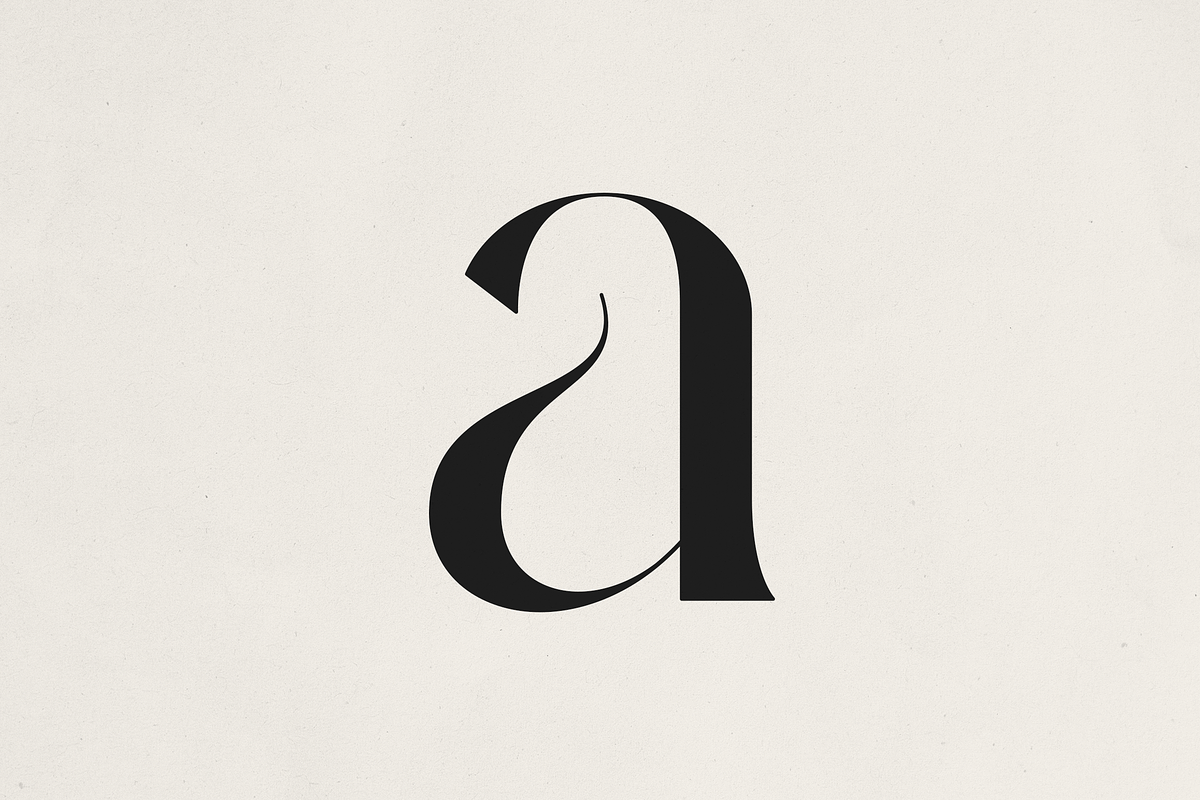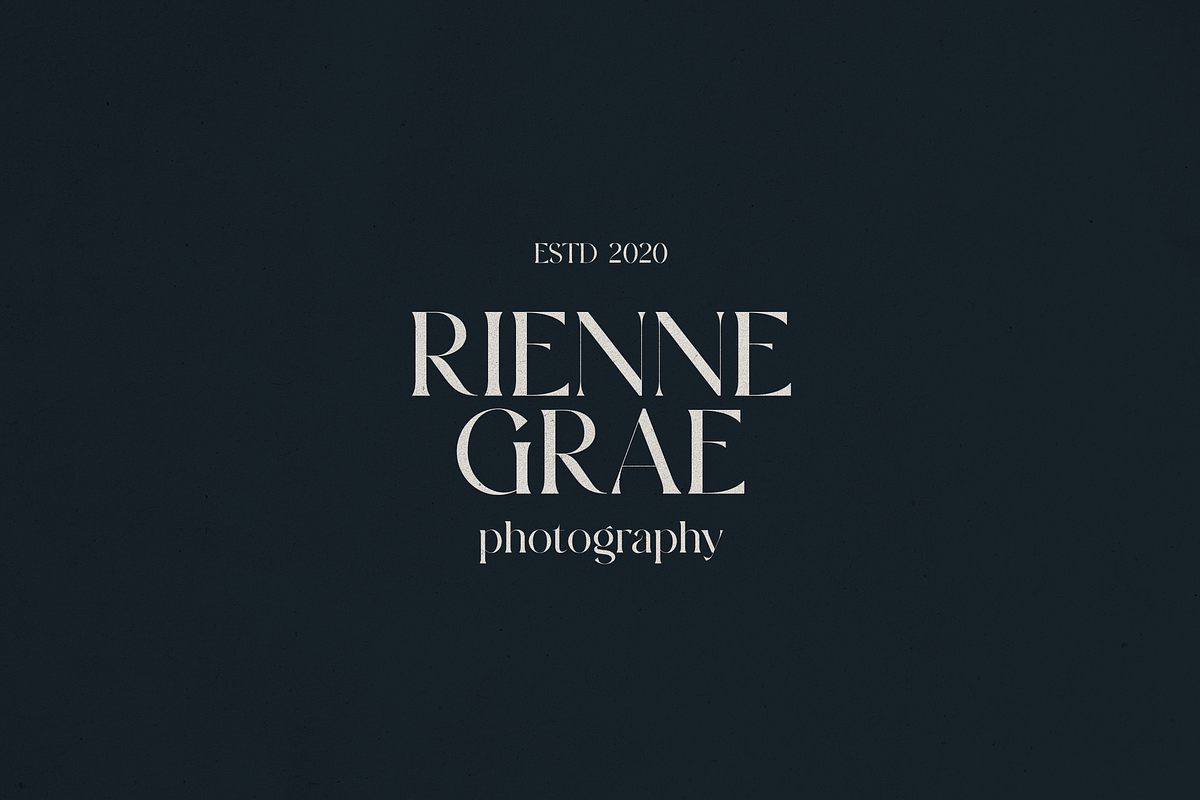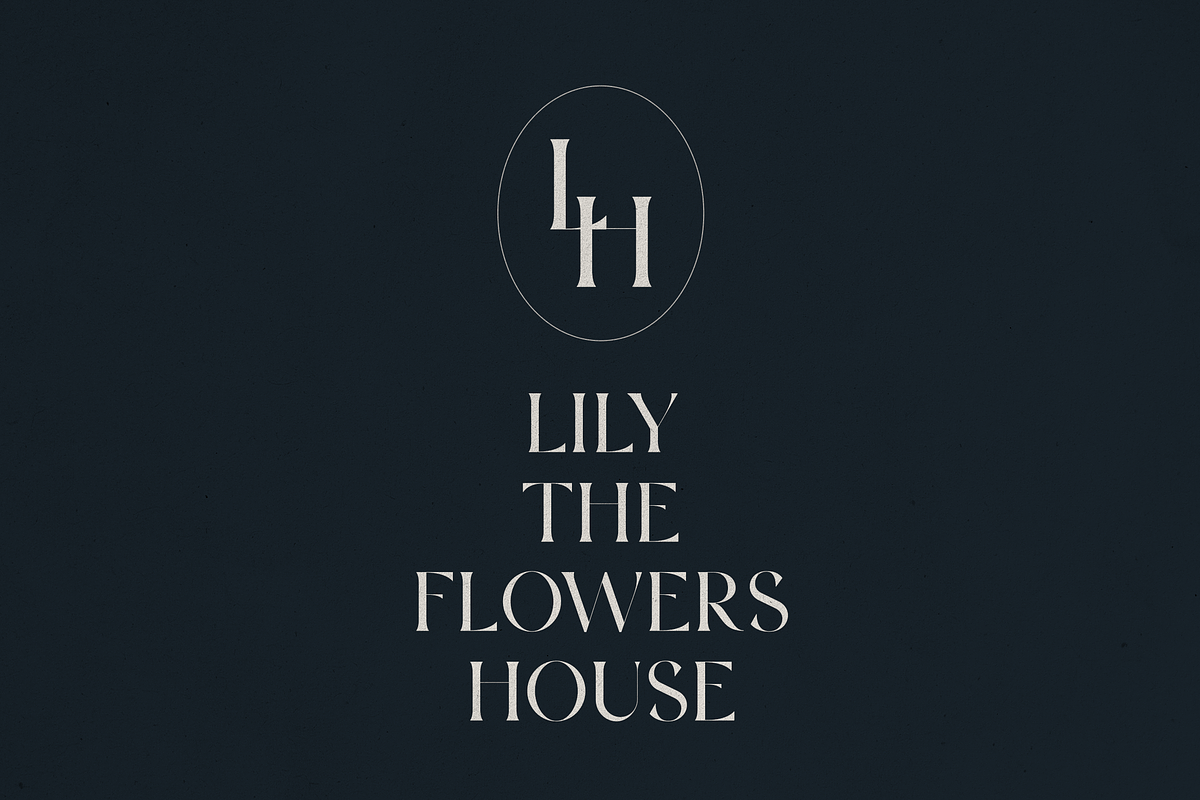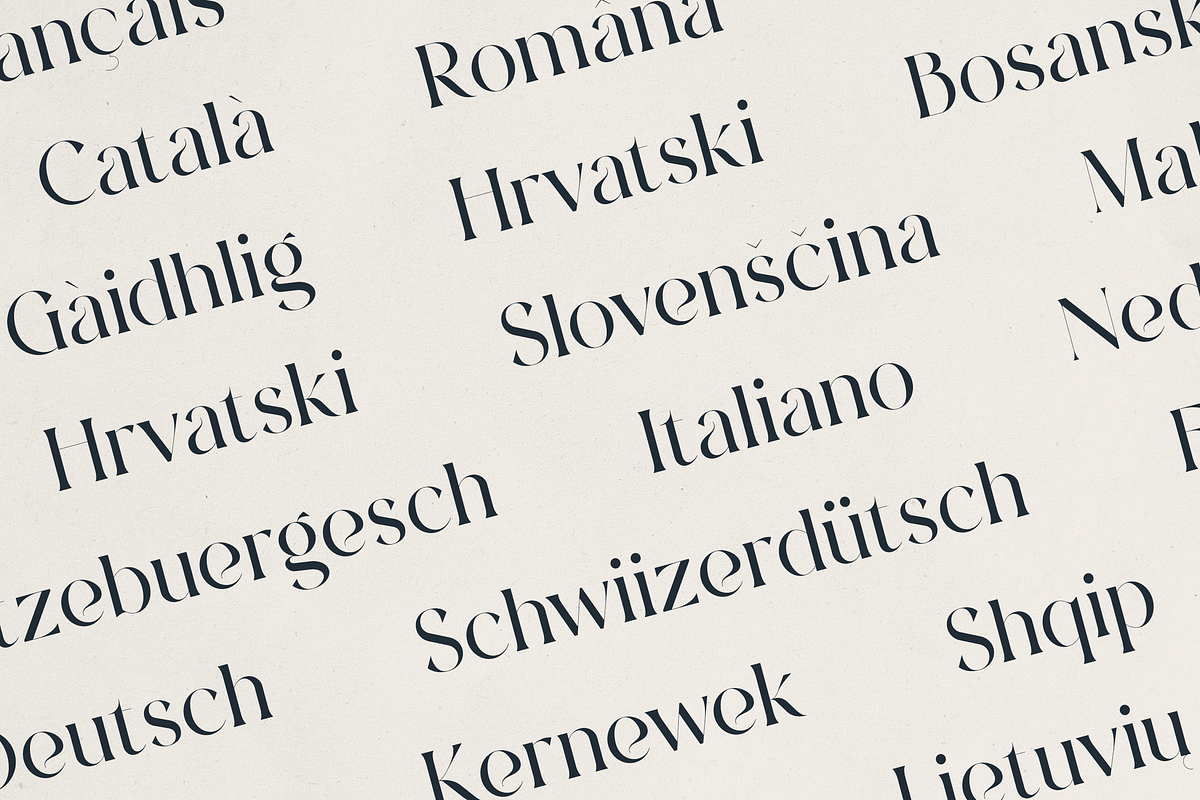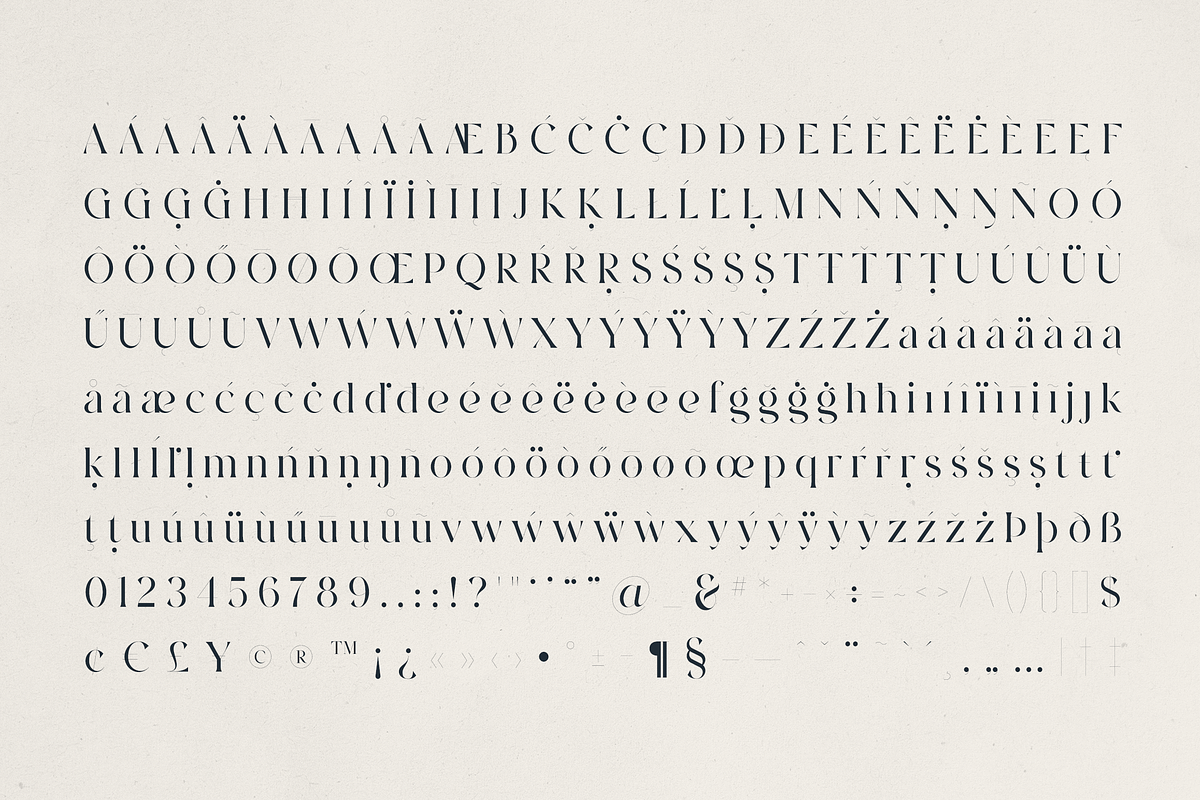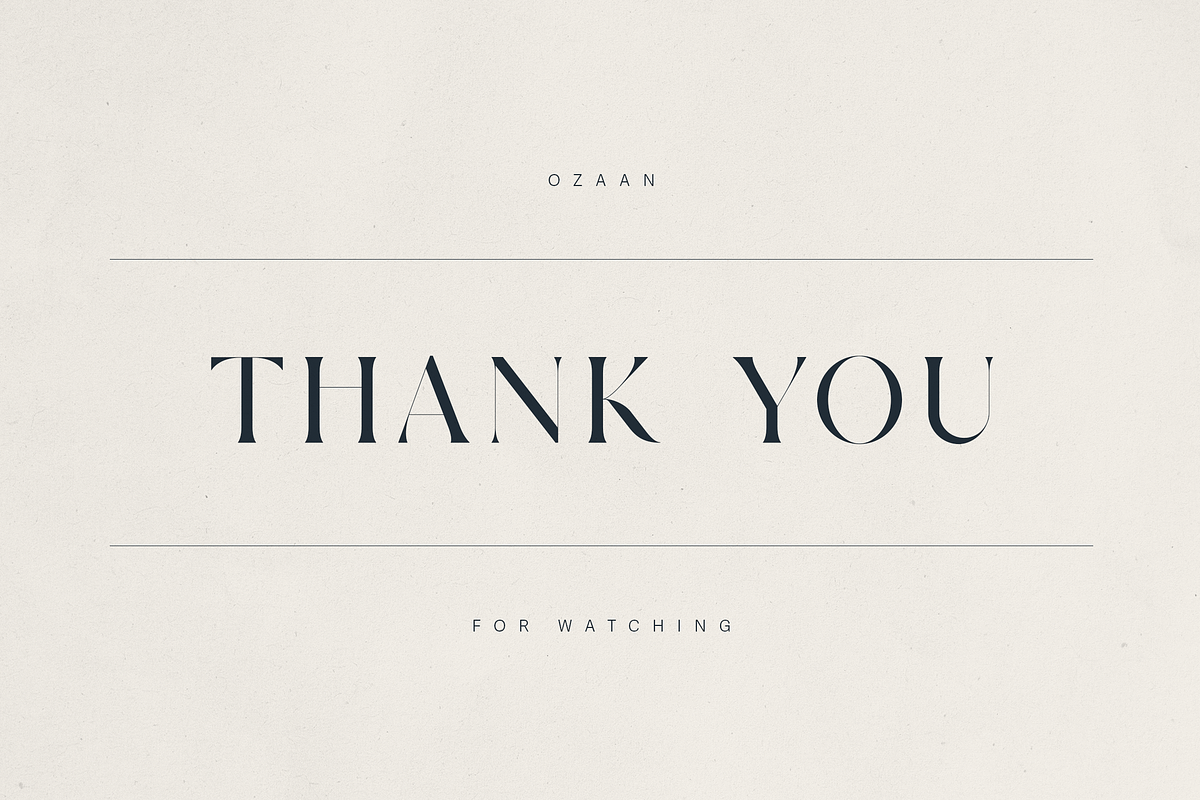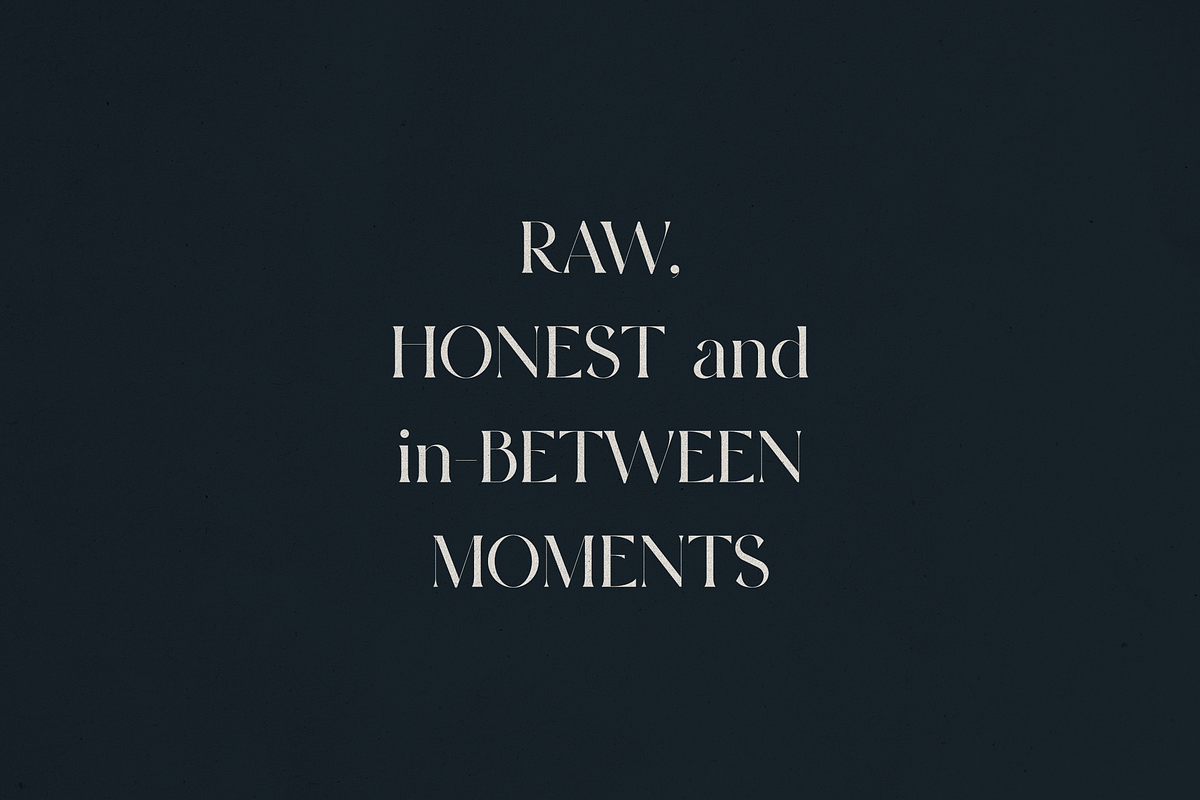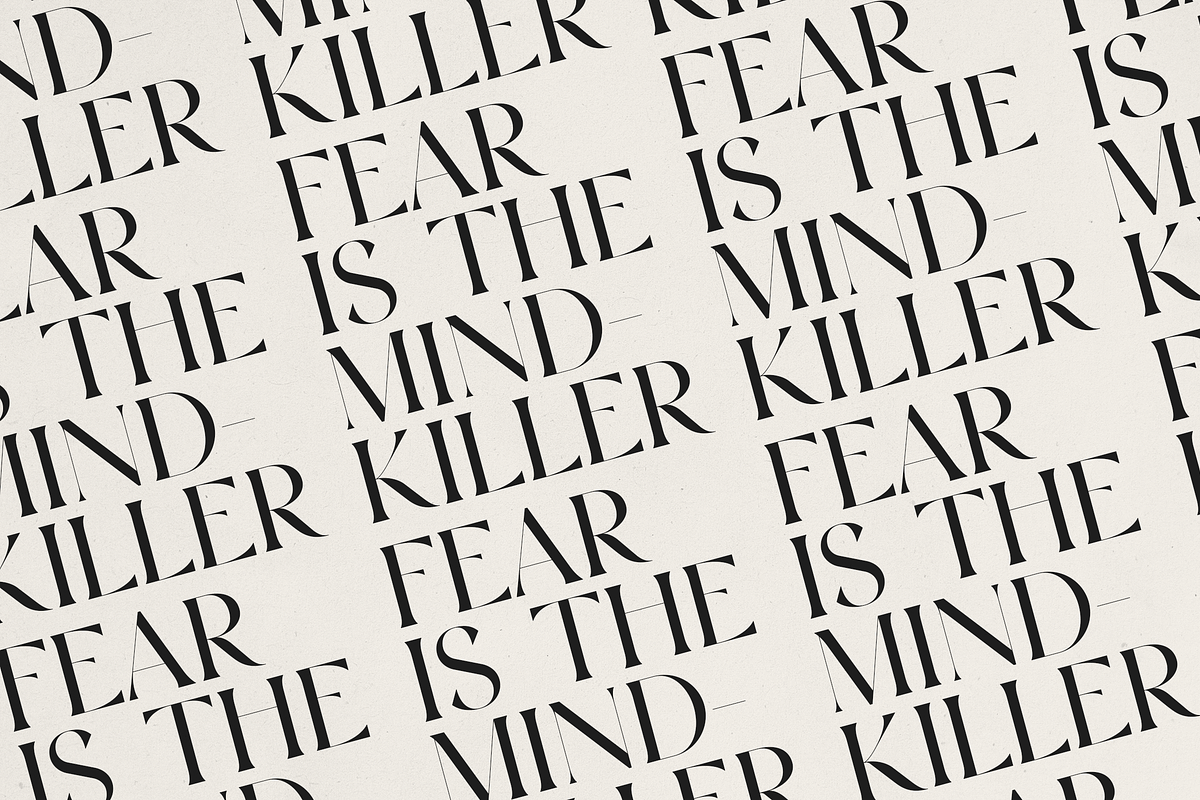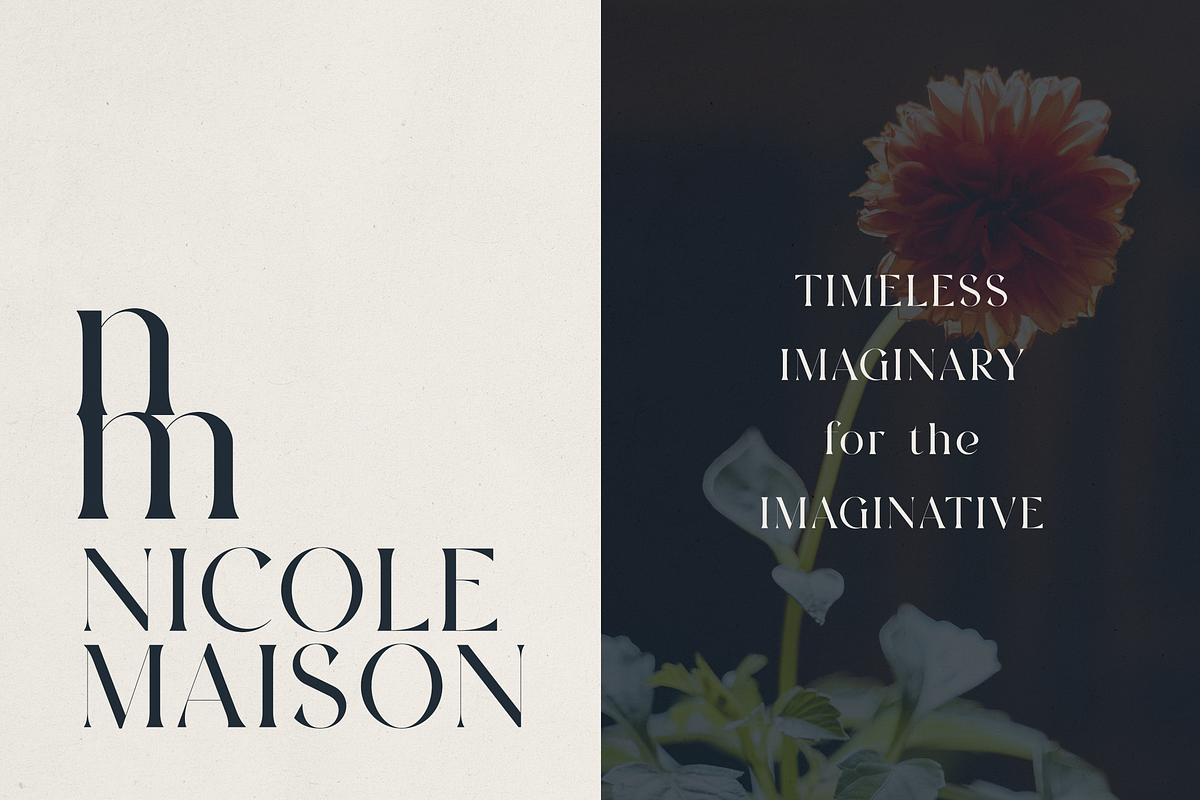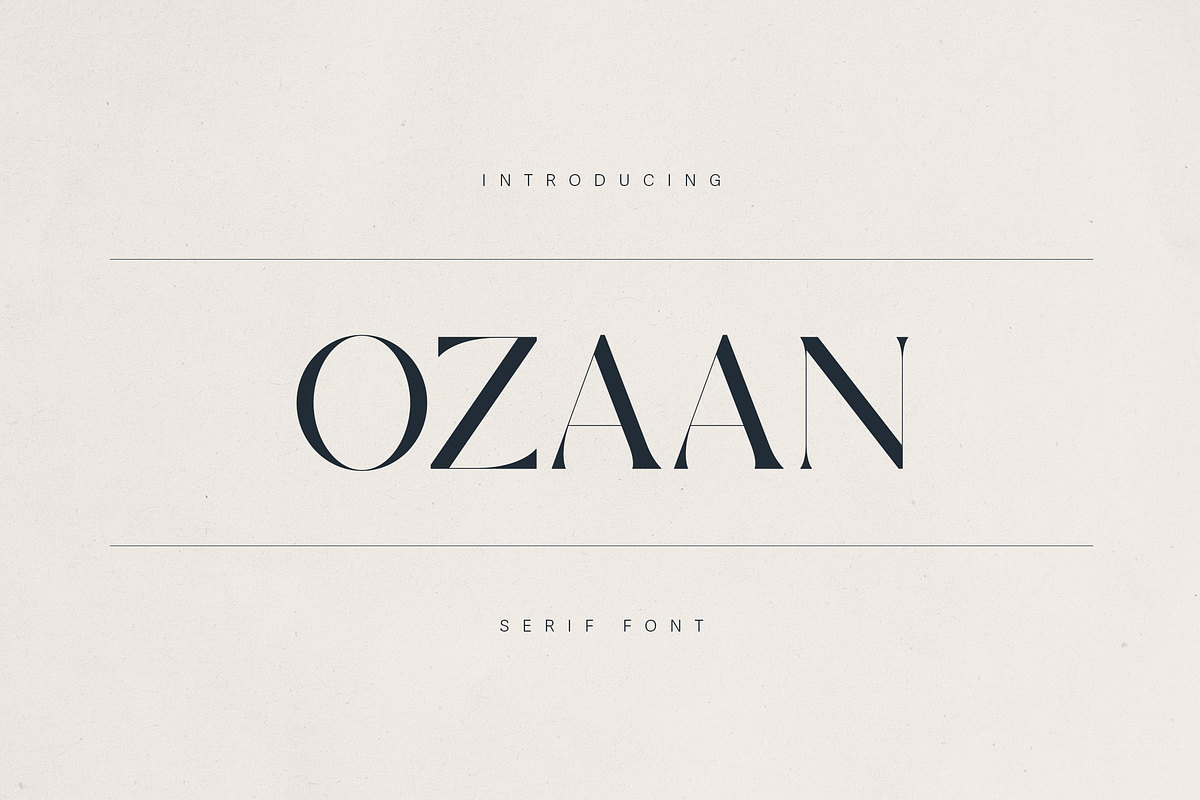
OZAAN – A Sophisticated Modern Serif
OZAAN – A Sophisticated Modern Serif Font
OZAAN is an elegant, high-contrast serif font designed to elevate your visual storytelling with style and precision. With its sharp serifs, gracefully tapered stems, and luxurious curves, OZAAN blends classic typography aesthetics with modern minimalism—making it the perfect typeface for fashion branding, editorial design, photography logos, upscale packaging, and lifestyle projects.
Crafted for creatives who value beauty and versatility, OZAAN supports 80+ languages and features a refined balance of thick and thin strokes that bring high-end appeal to headlines, logos, and brand identities.
Whether you're designing for a boutique studio, a luxury wellness brand, or an artistic publication, OZAAN offers the sophistication and versatility to make your message unforgettable.
- Elegant modern serif style
- Uppercase, lowercase, numbers, punctuation
- Extensive multilingual support
- Perfect for branding, logos, magazines, packaging, wedding stationery, and more